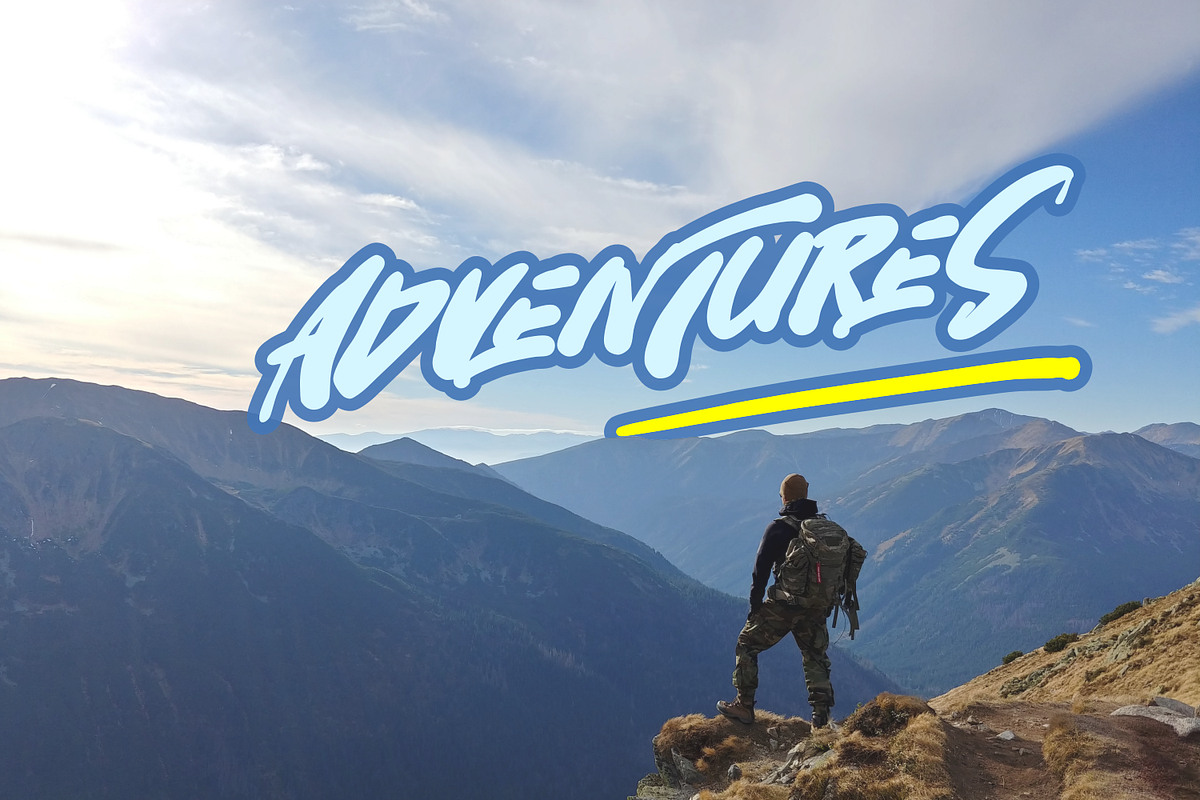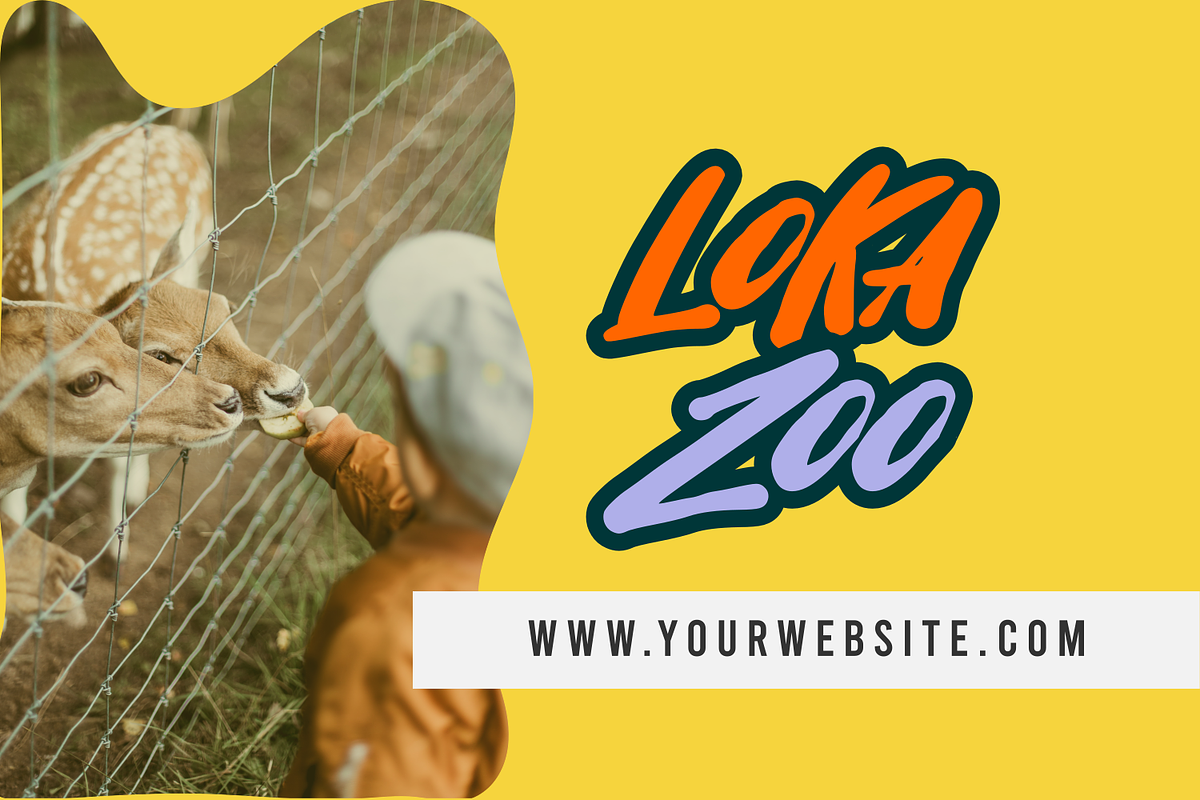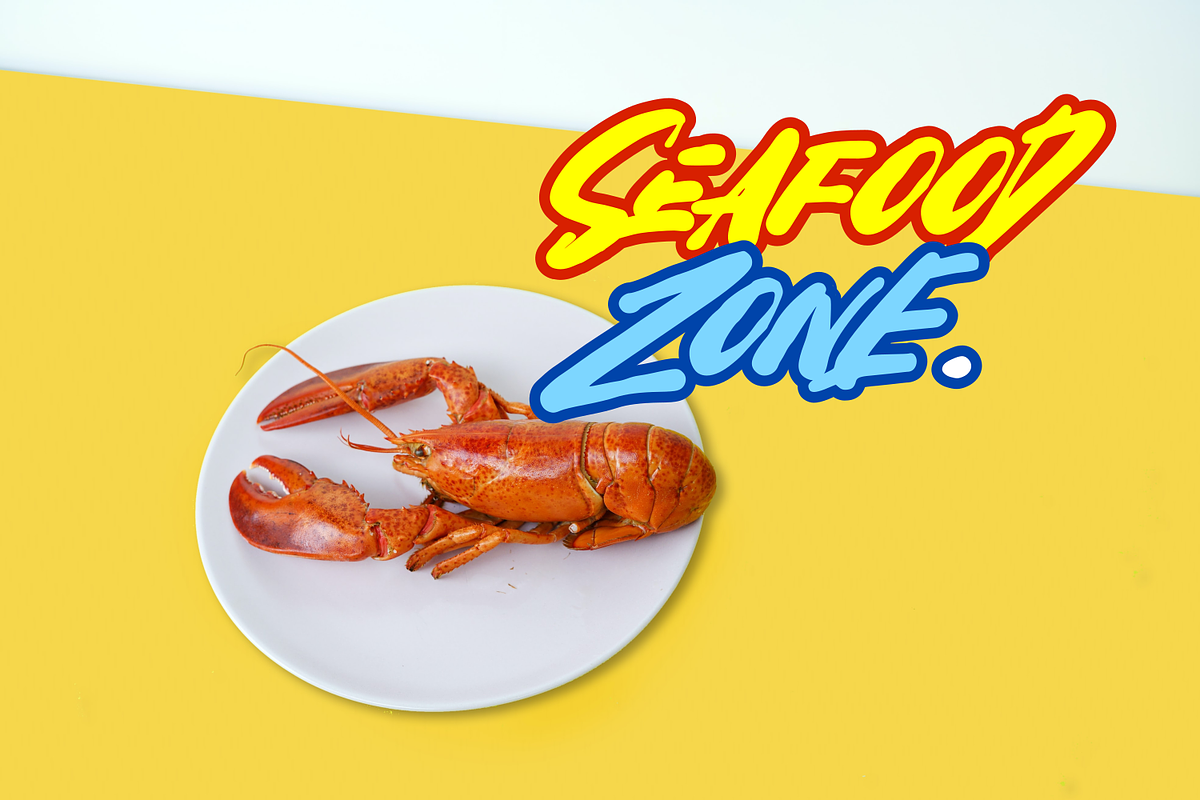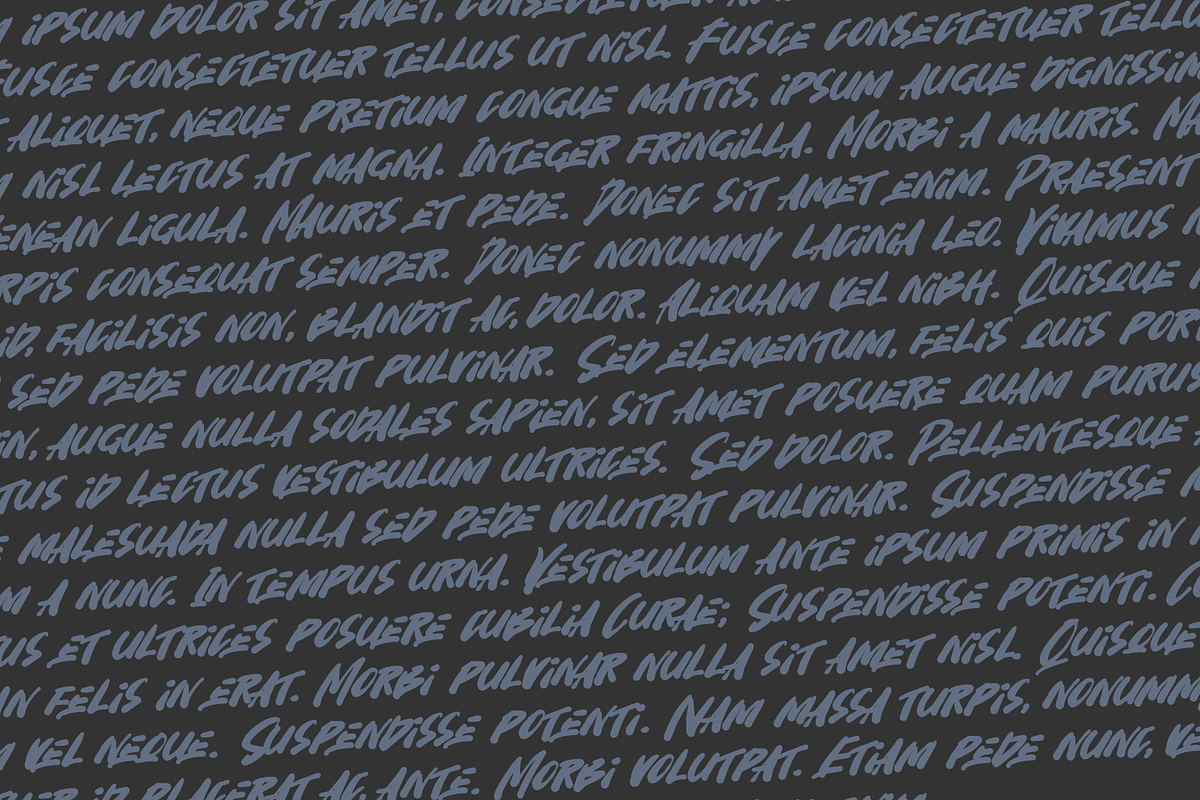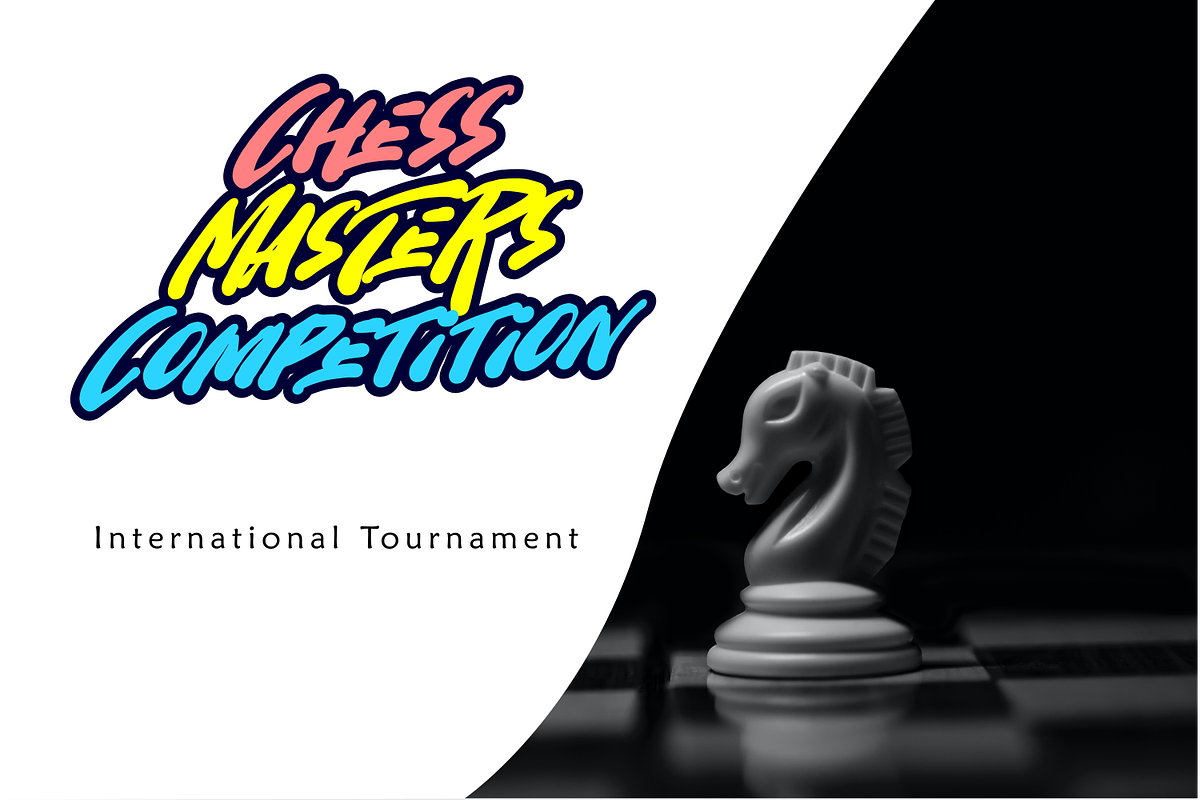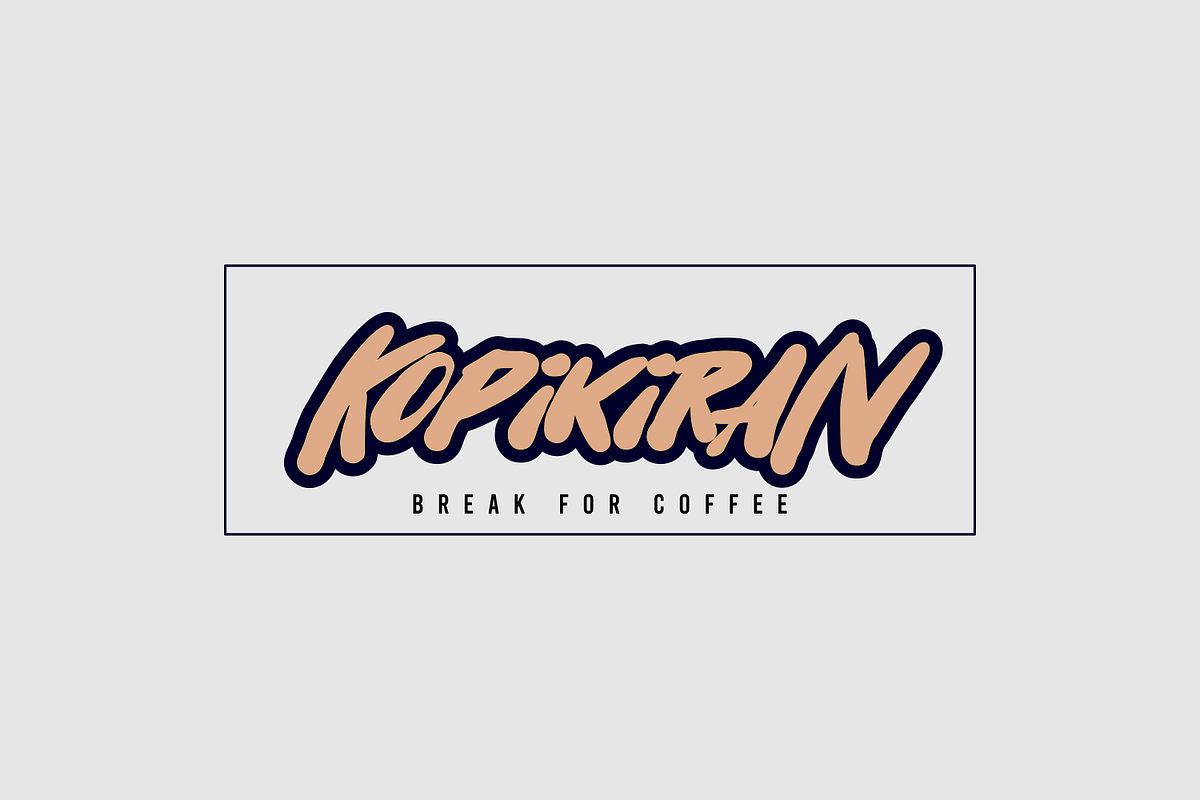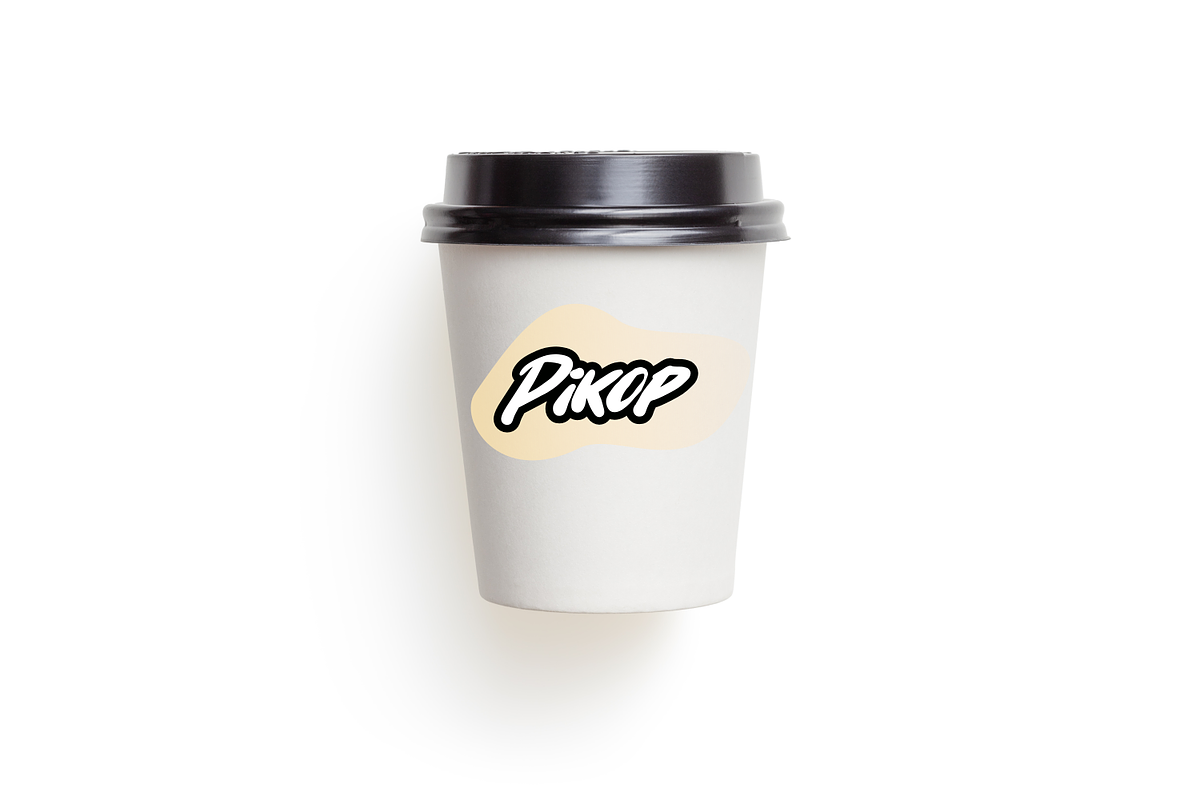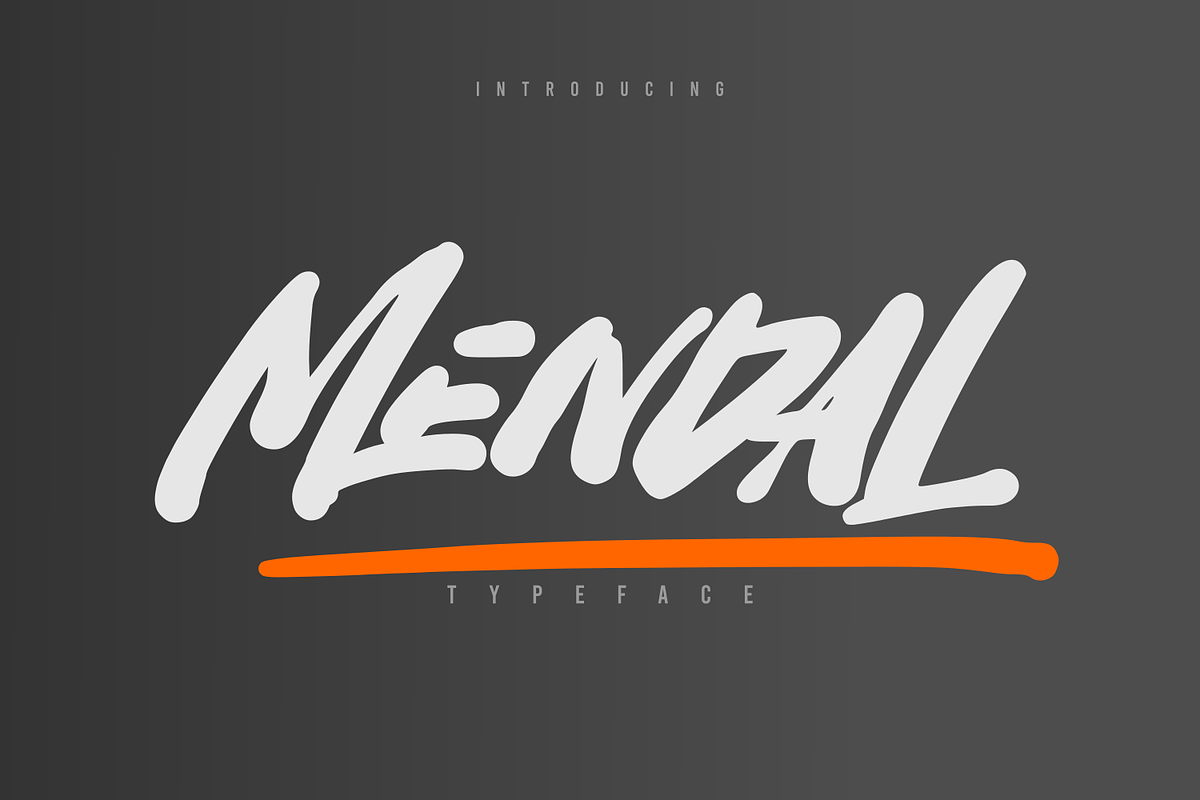
Mendal
Mendal is a cool and brushed display font, that has a street art vibe. This font is suitable for designs such as t-shirts, sportswear, logos, advertisements, clothing, and more. Mendal is PUA encoded which means you can access all of the amazing glyphs and ligatures with ease!